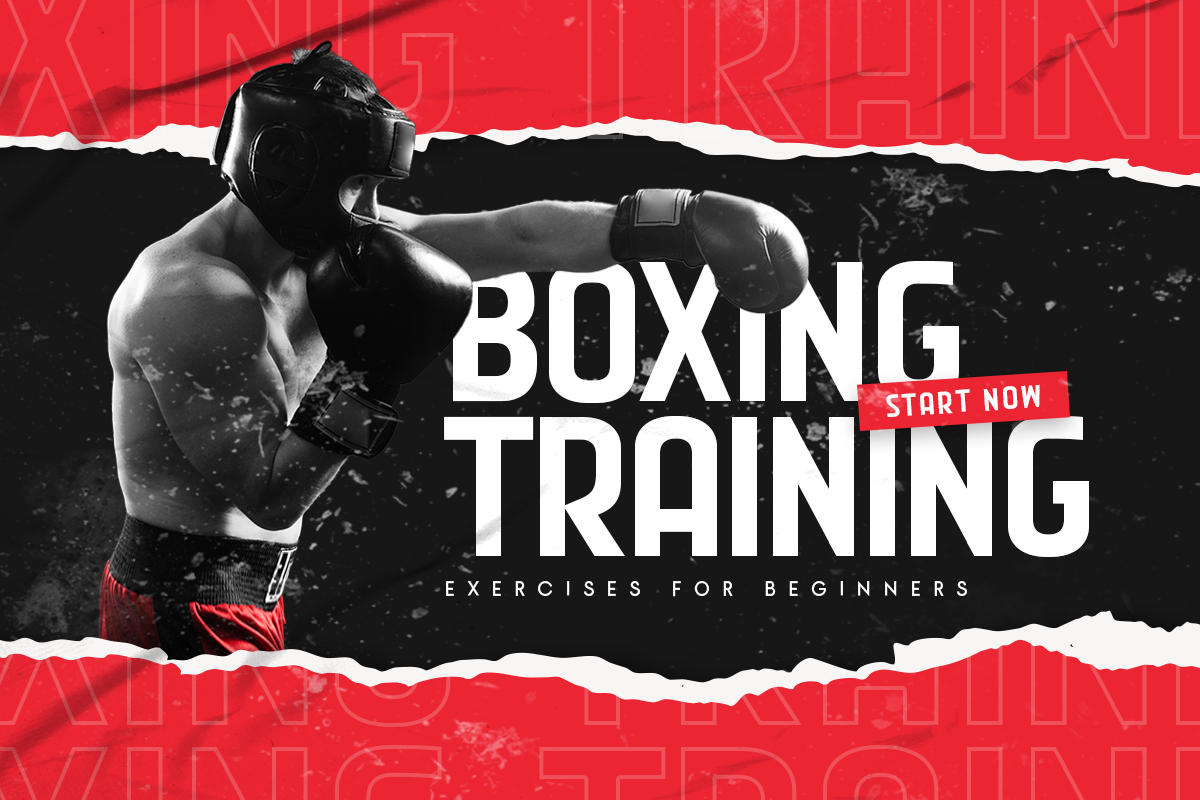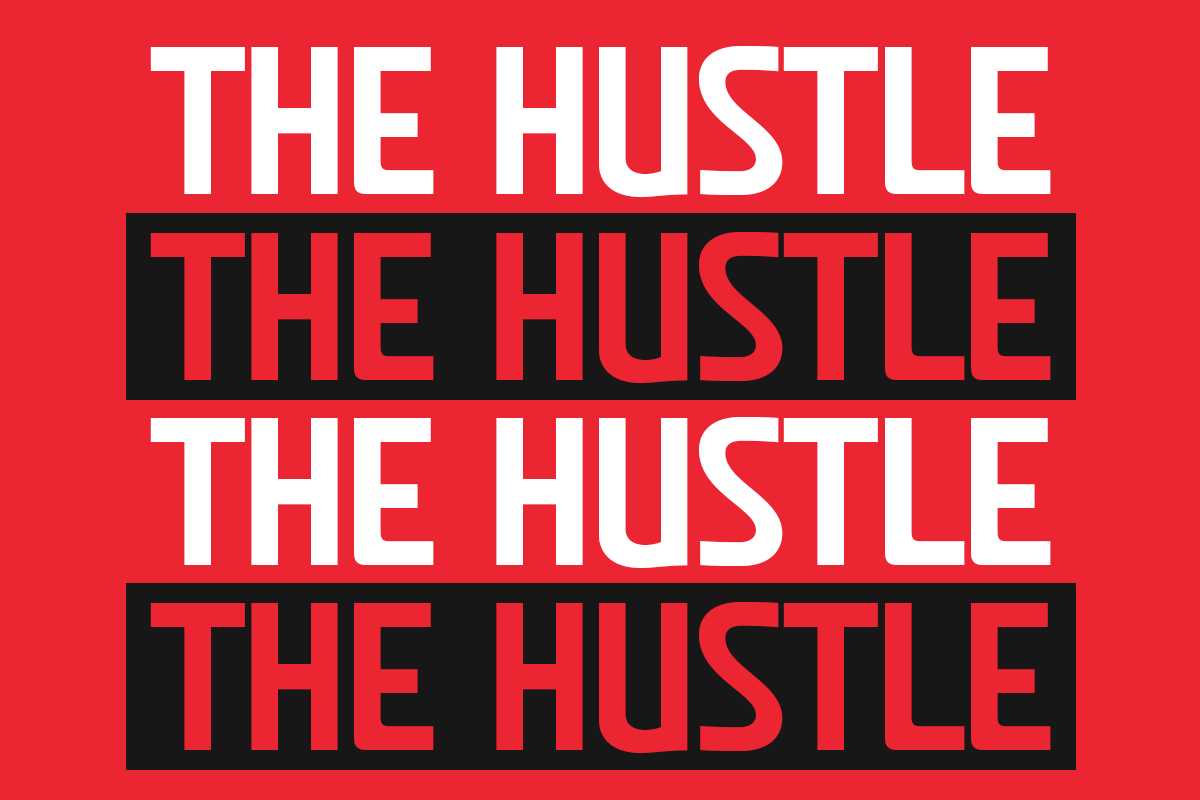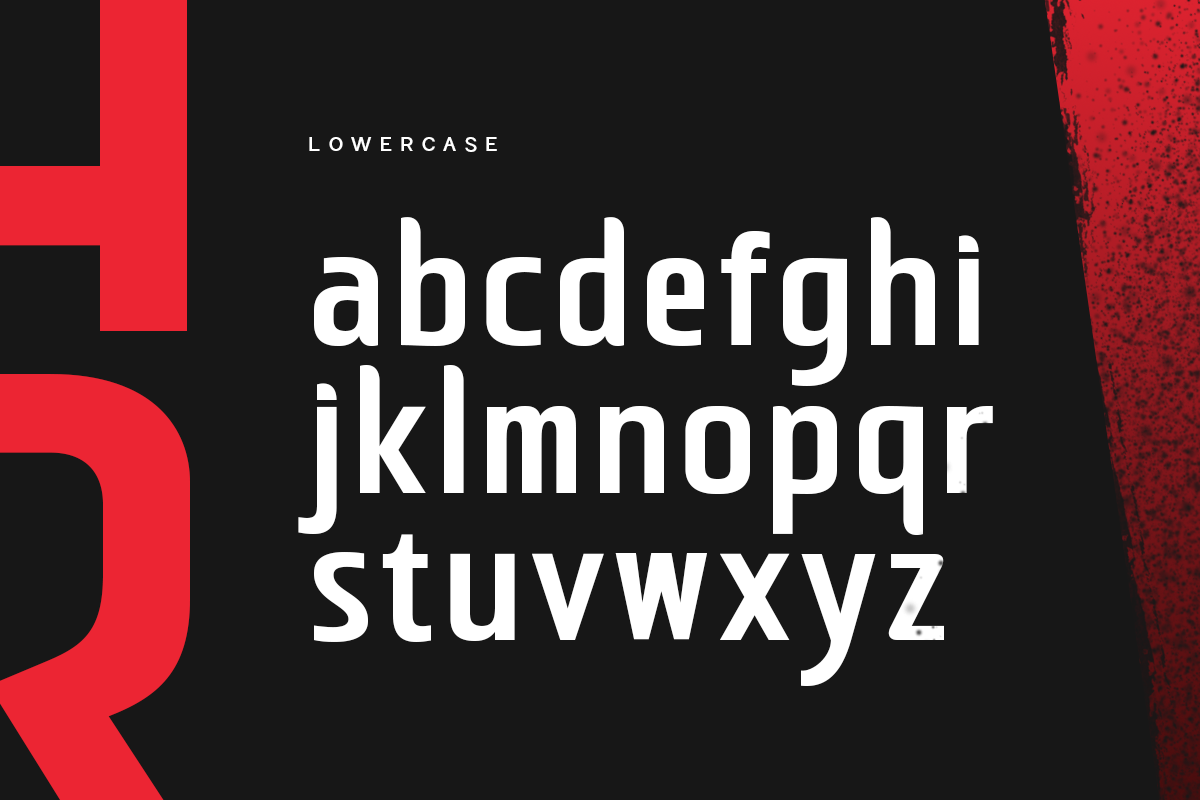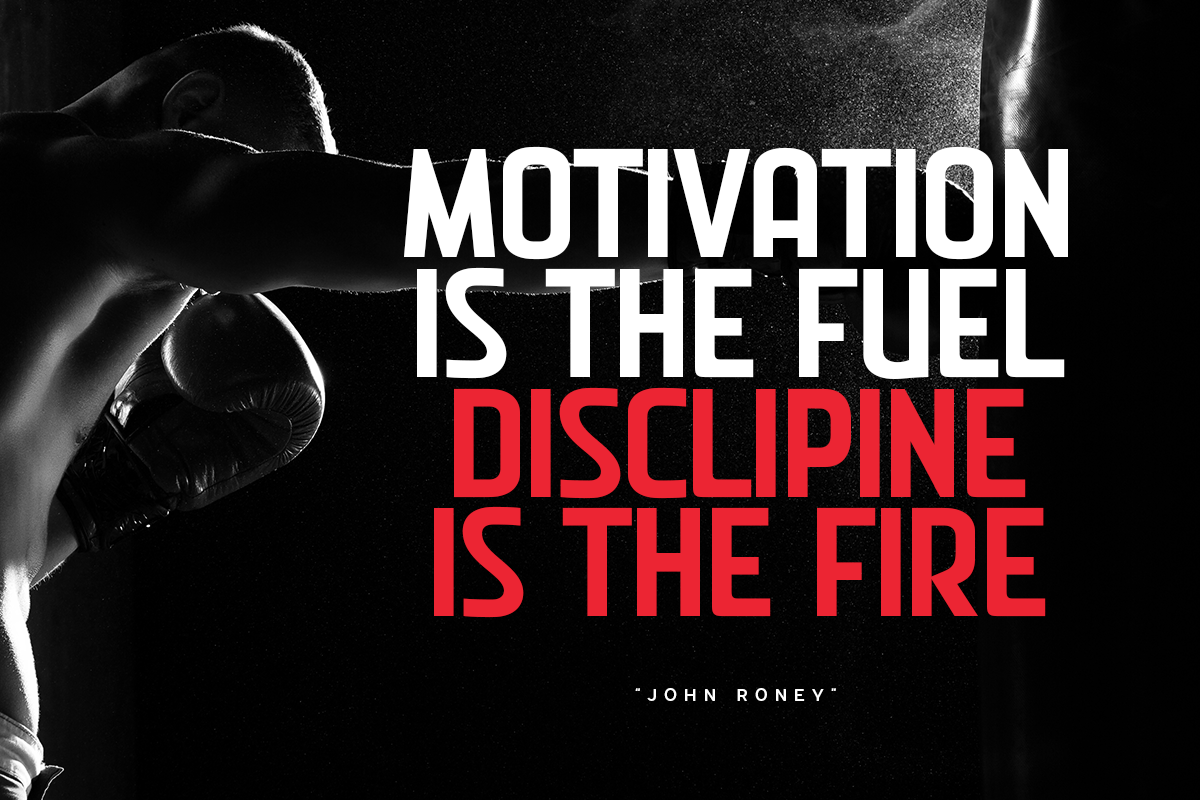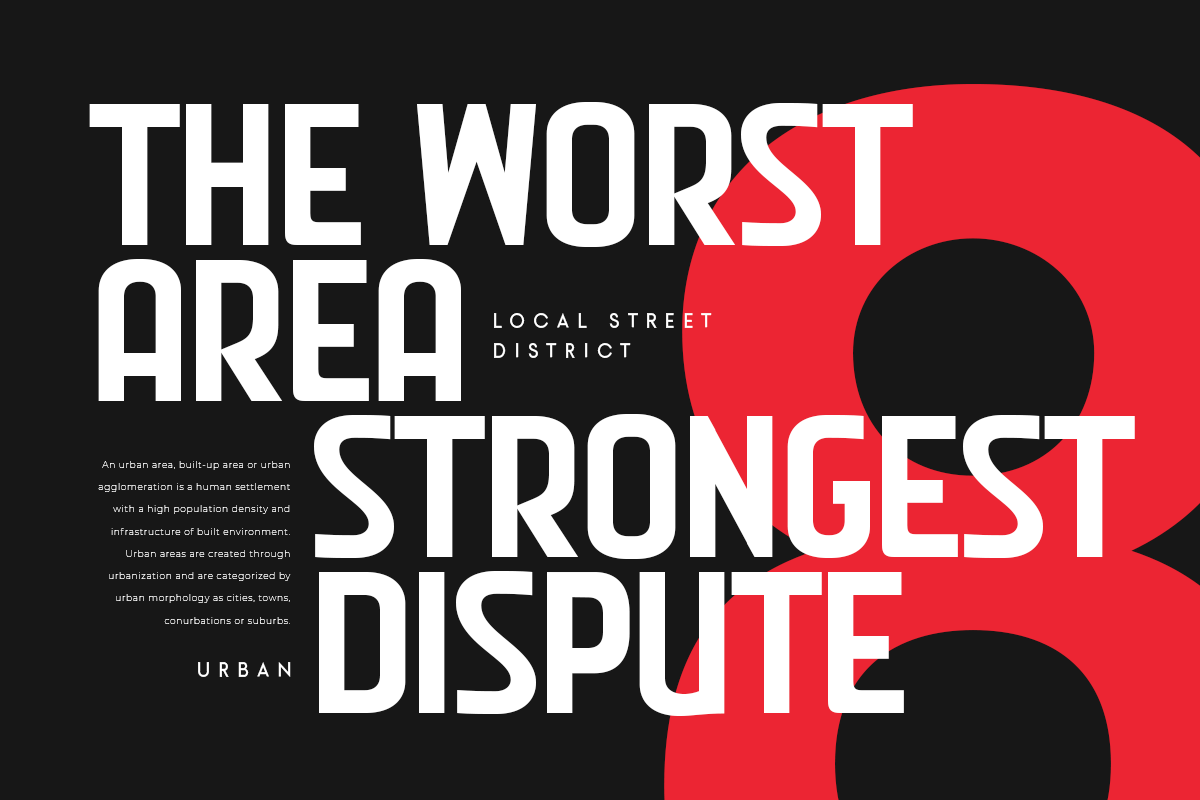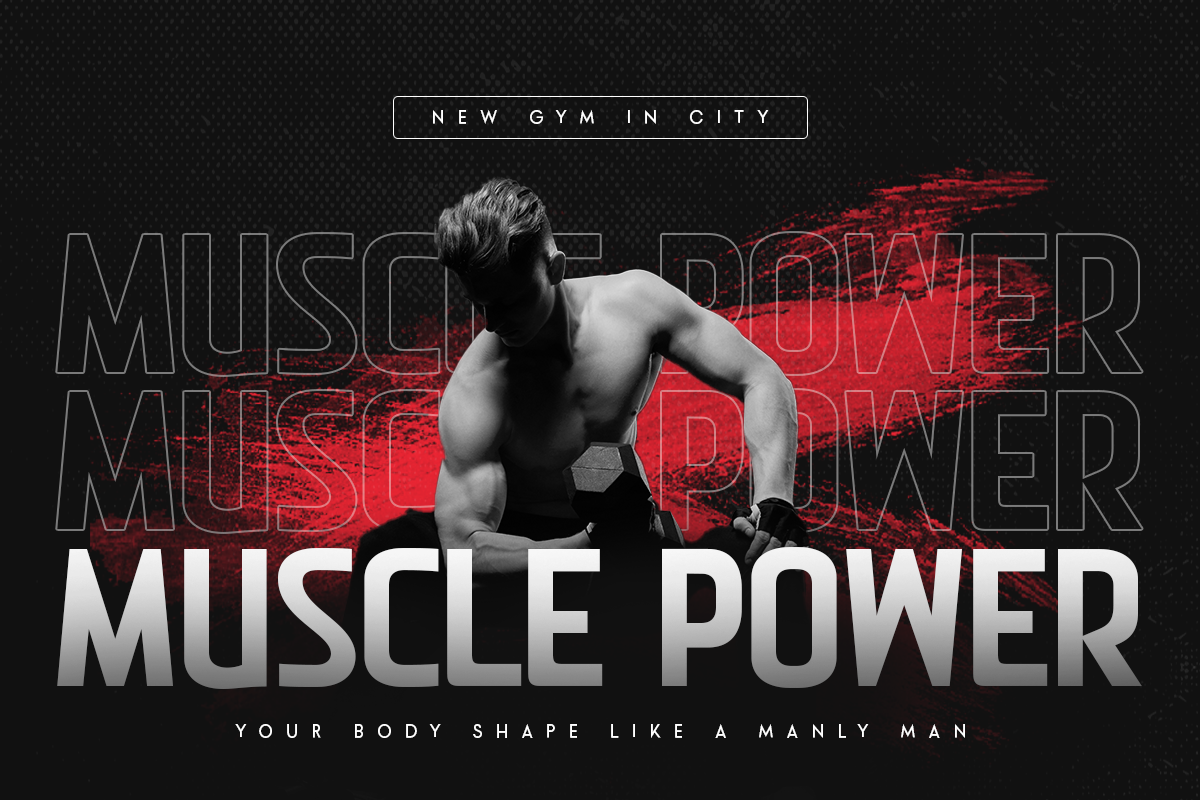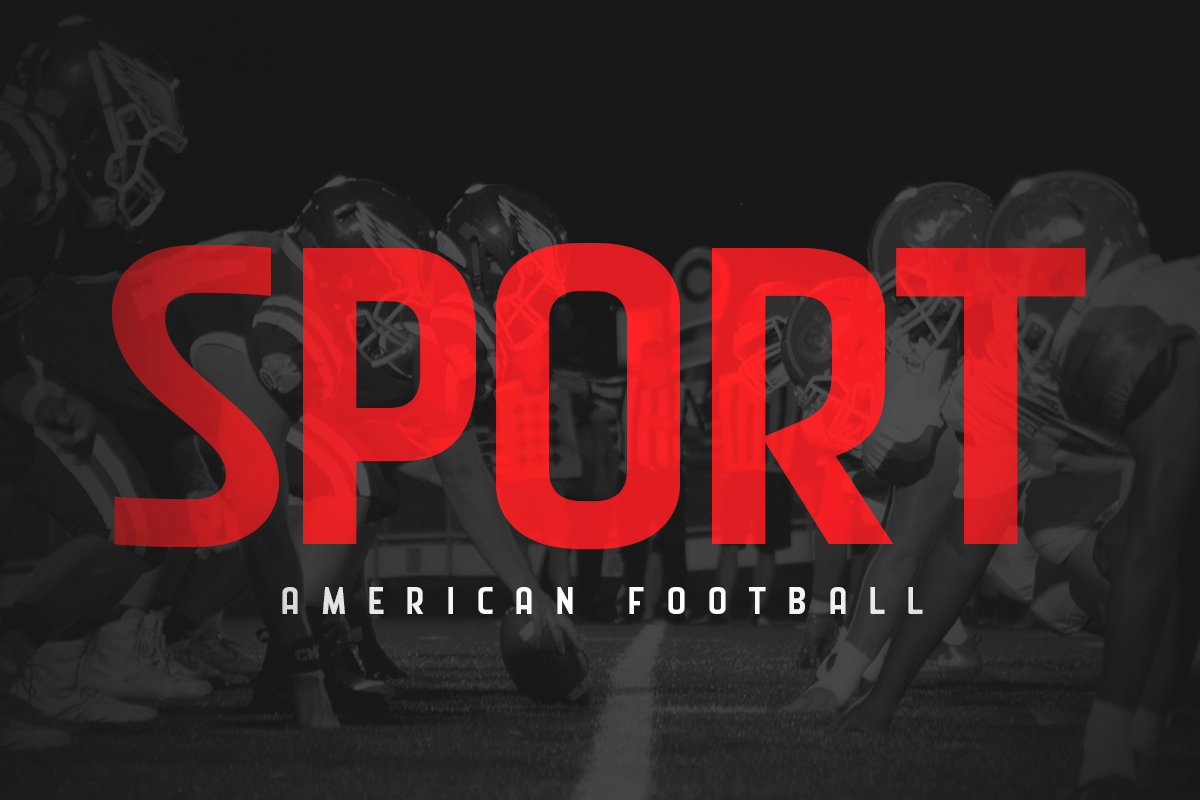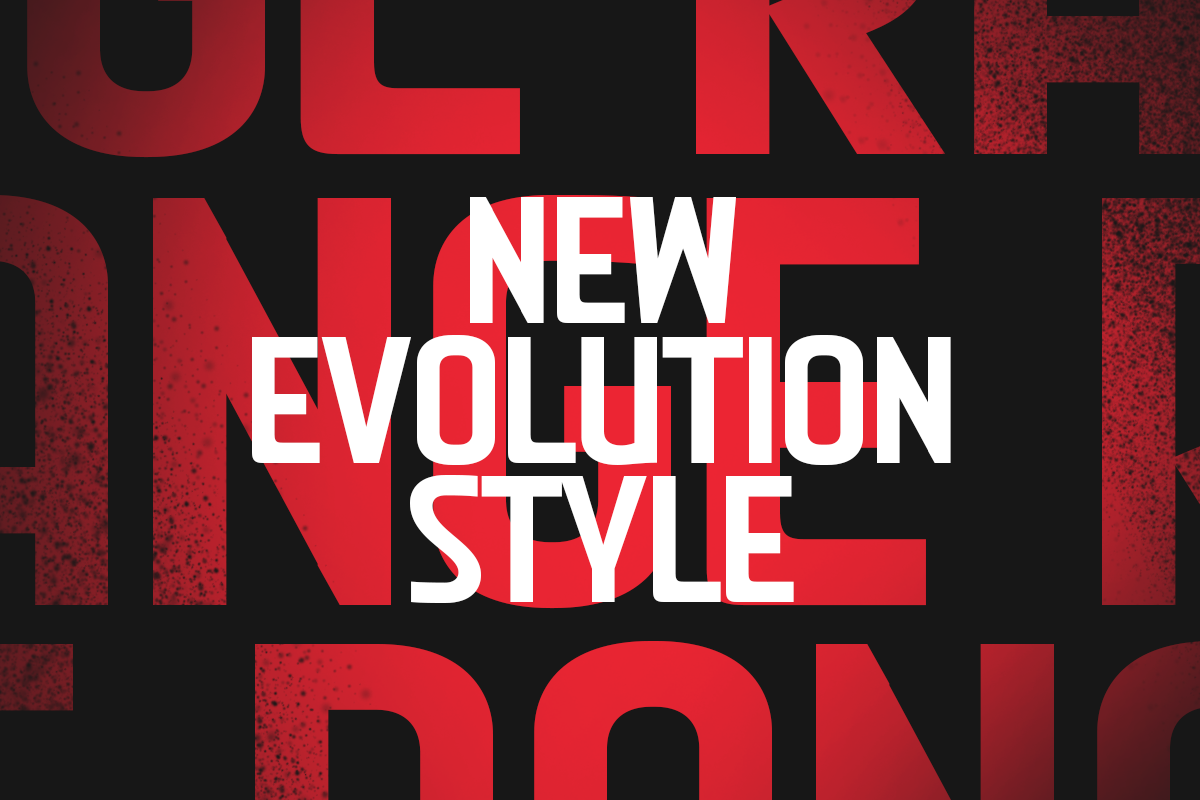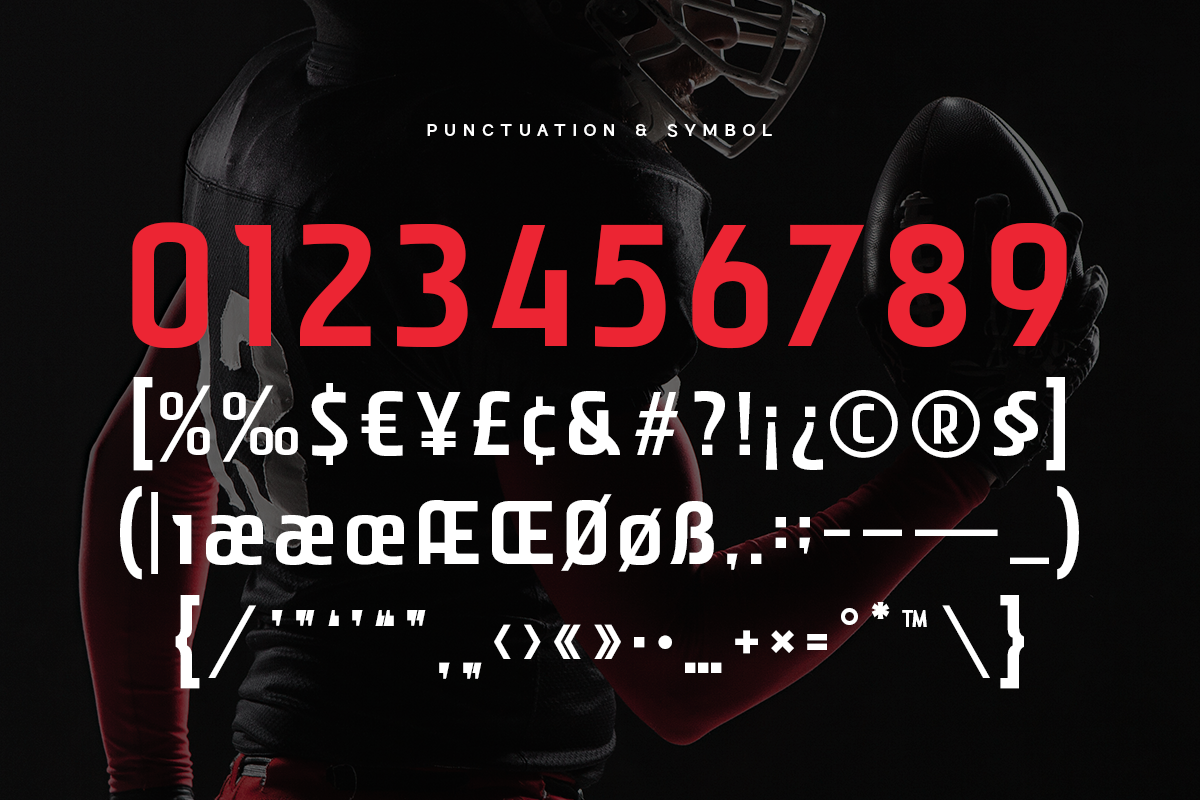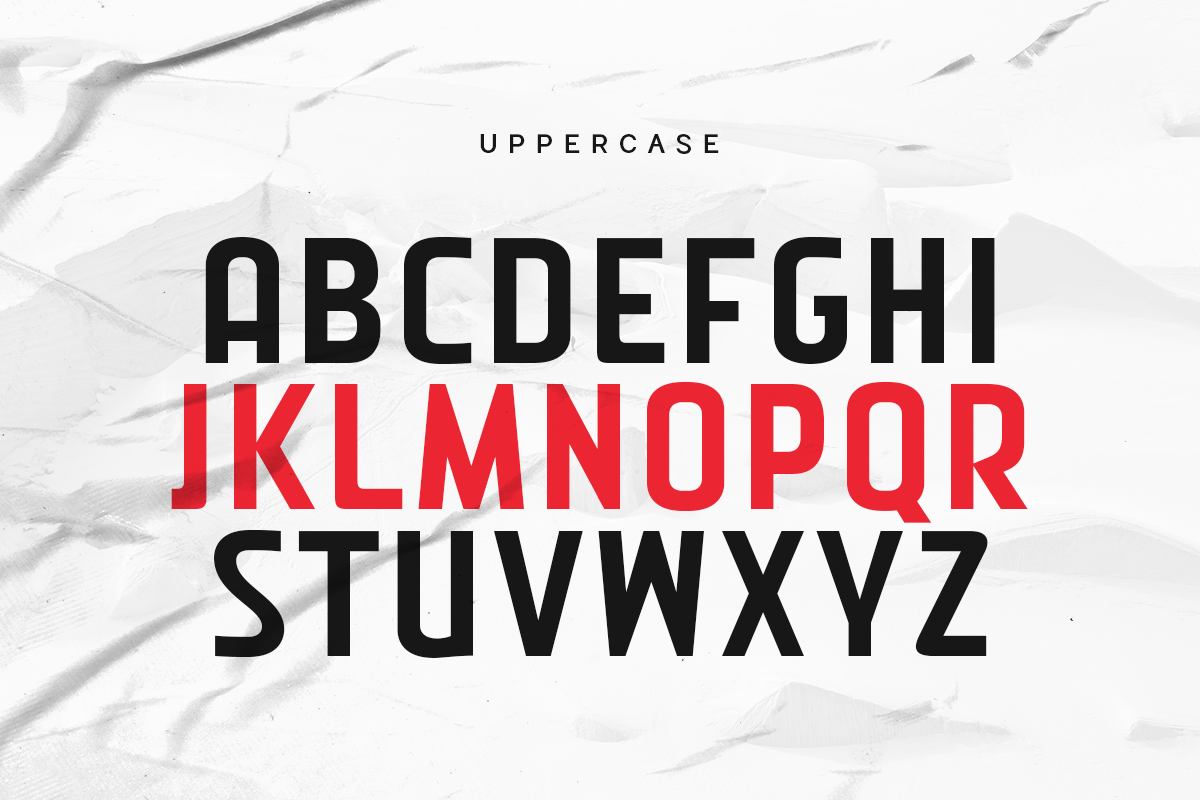
Range - Futuristic Sport Font
Range is a Futuristic Sport Font that special created for Sport and Technology design needs with Modern style. A New Sport font that we created special for Modern branding needs, with Futuristic style that ready to add value of your brand. It's so nice to leverage designer or product owner that need solutions to make their design look more unique and sporty.
Range Futuristic Sport Font ready with:
- Uppercase and Lowercase characters
- Numbers and Punctuations